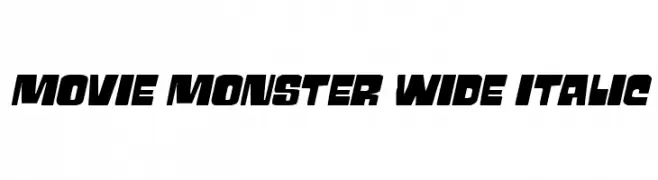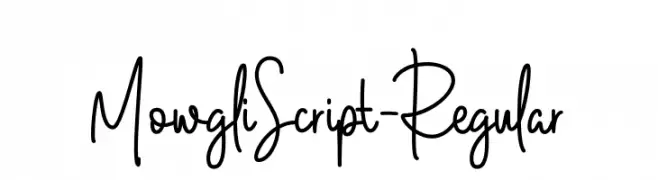
A bold, wide, and geometric font ideal for impactful headlines.
A bold, wide, and italic font with a dynamic and impactful style.
A playful, handwritten font with flowing, cursive-like strokes and a lively aesthetic.
A bold, dynamic script font with a playful and energetic style.
A playful and elegant script font with a handwritten style.
A tall, narrow, and modern font with clean lines and a cohesive style.
A playful, informal handwritten font with smooth, rounded edges.
A dynamic, handwritten-style font with fluid strokes and a modern, artistic flair.
A playful, handwritten font with fluid, irregular strokes.
A lively, expressive handwritten font with fluid, dynamic strokes.